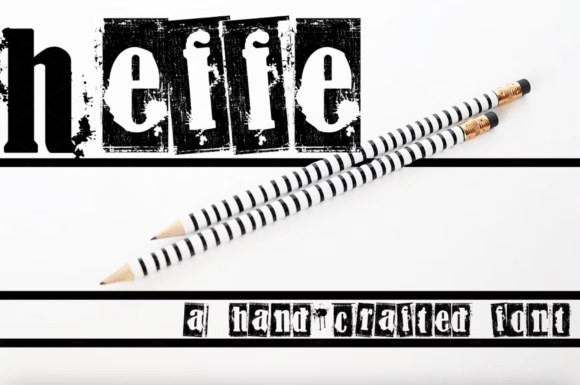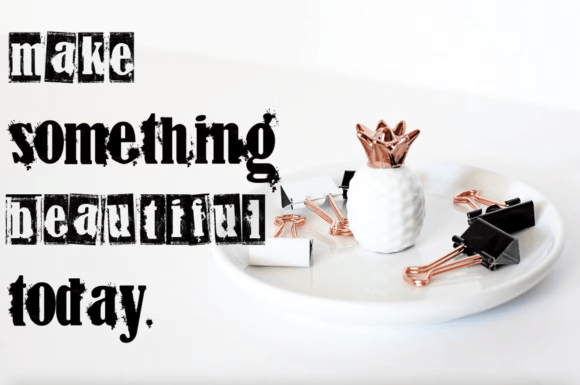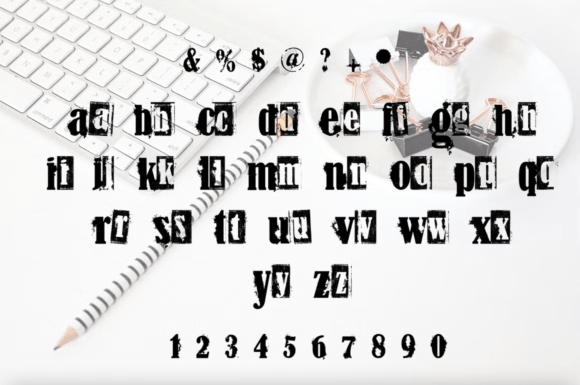
Heffe Font: Bold & Fun Vintage Slab Serif for Logos & Branding
About the Heffe Font
Step up your design game with Heffe Font, a font that exudes confidence and style. Heffe is a funky slab serif font with bold letters and a vintage vibe. This fun font gives your project an old school stamp look that is both decorative and easily readable. Perfect for everything from invitations and announcements to branding and logos.
Heffe’s bold, vintage aesthetic makes it ideal for headlines, short text blocks in posters, and branding applications where a strong, retro feel is desired. It works exceptionally well for logos and short-form marketing materials, conveying a sense of playful nostalgia. However, its slab serifs and relatively high x-height aren’t suited for extended body text or UI elements; readability suffers in smaller sizes or longer passages.
Pairing Heffe with a clean sans-serif like Open Sans for body copy creates a strong contrast, balancing its boldness with easy readability. For a more vintage-inspired look, consider pairing it with a delicate script font like Great Vibes for added elegance or a geometric sans-serif like Futura for a retro-modern feel.
Its overall personality is best described as bold, playful, and retro—ideal for brands aiming for a vintage-inspired, yet approachable image.